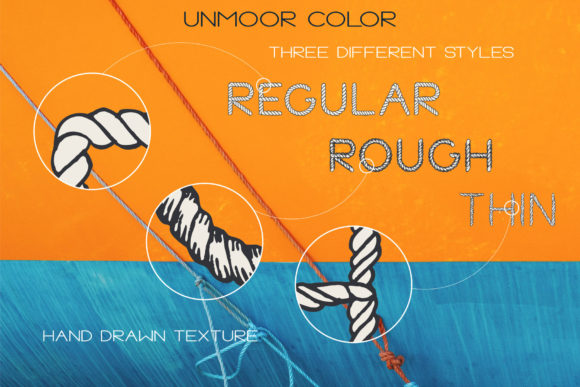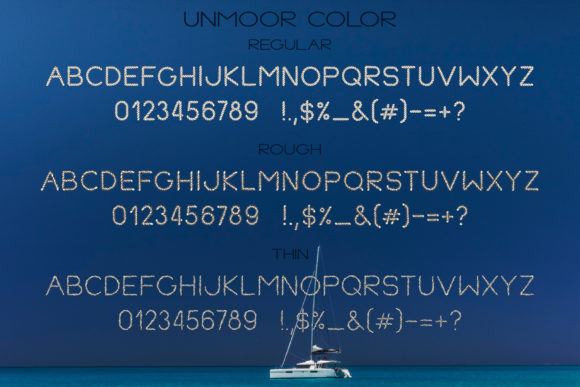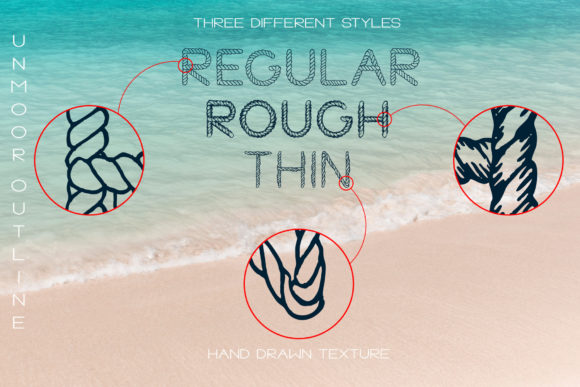
Unmoor Family Font
About Unmoor Family Font
If you’re in search of rope letters to enhance your nautical design, look no further than “The Unmoor” font family. It offers a unique collection of color fonts, consisting of three incredible styles: regular, rough, and thin. These styles can be combined seamlessly to create the perfect effect for your project.
“The Unmoor” font family is specifically designed to bring the charm of rope letters to life. The color of the letters is a light beige shade, complemented by a dark grey stroke. Please note that the color scheme of the font is fixed and cannot be changed.
Whether you’re working on nautical-themed designs, maritime-inspired artwork, or any other project that requires a touch of seafaring aesthetic, “The Unmoor” font family is an ideal solution. Its distinctive rope-like appearance adds a unique and authentic element to your designs, instantly evoking the spirit of the sea.
Explore the versatility of “The Unmoor” font family by combining its different styles to achieve the desired effect. Create visually captivating compositions, headlines, logos, or any other design element that will captivate your audience and reinforce the nautical theme.
Embrace the beauty and character of rope letters with “The Unmoor” font family. Let it be the perfect solution for adding a touch of maritime flair to your designs, making them truly stand out and resonate with the intended audience.